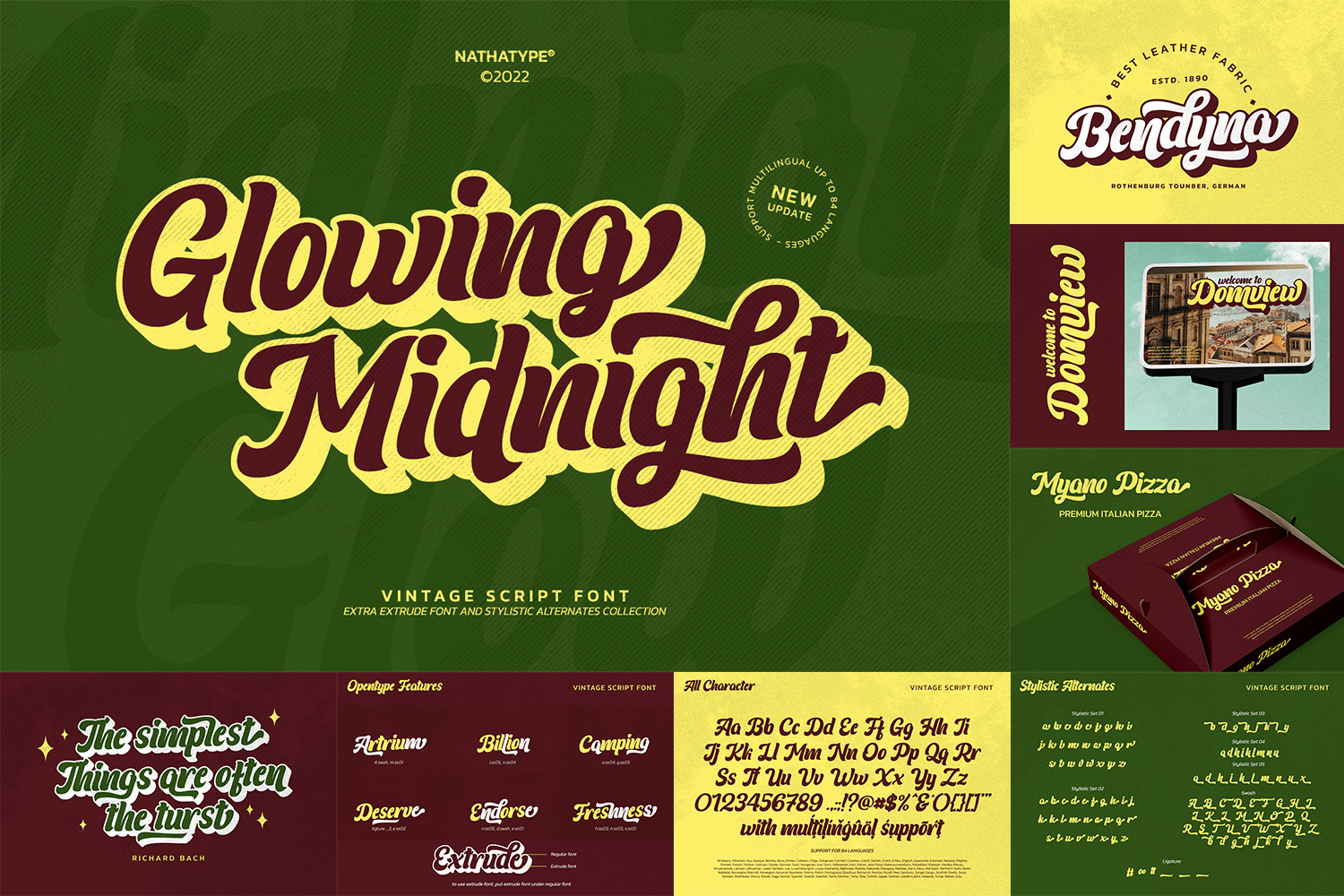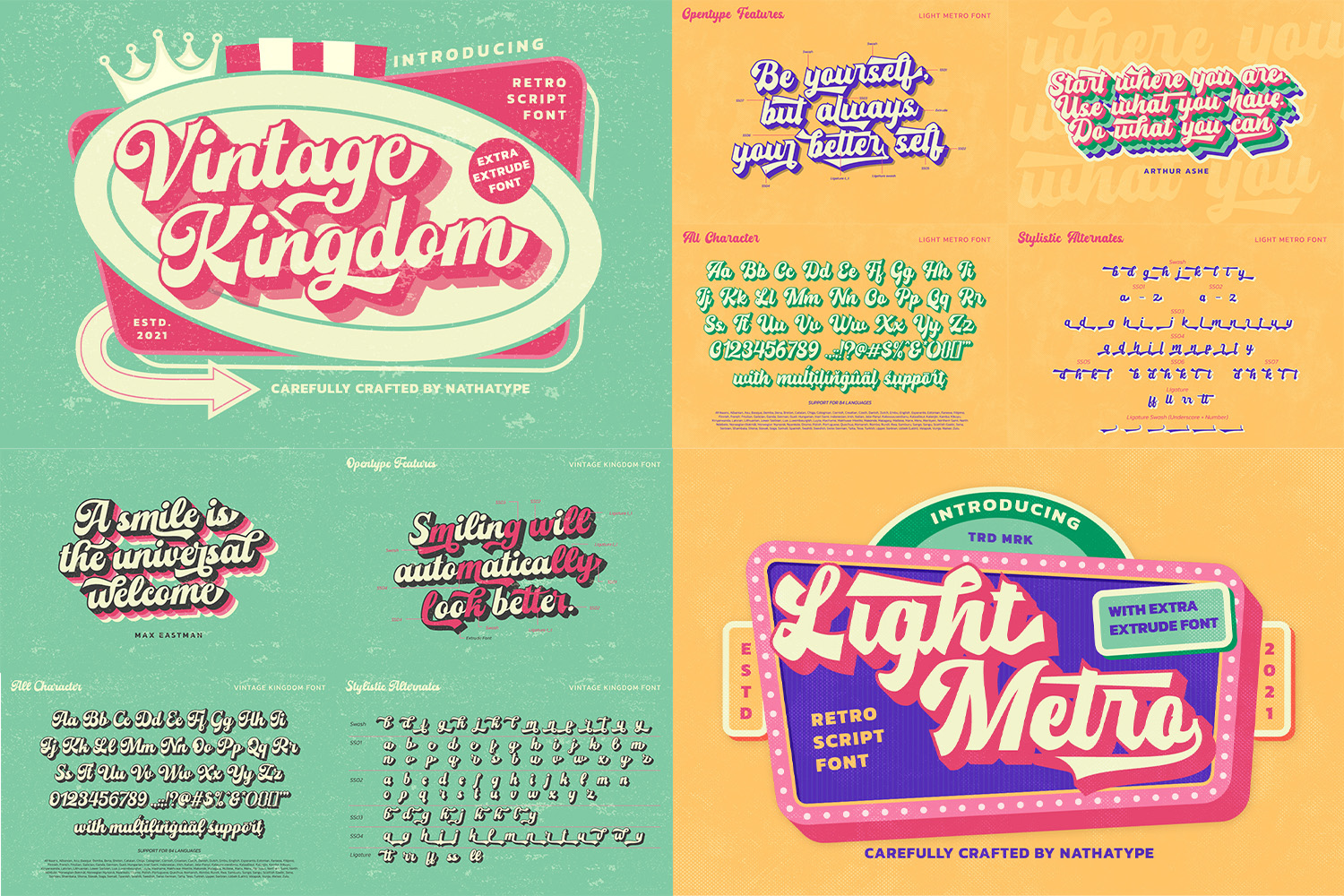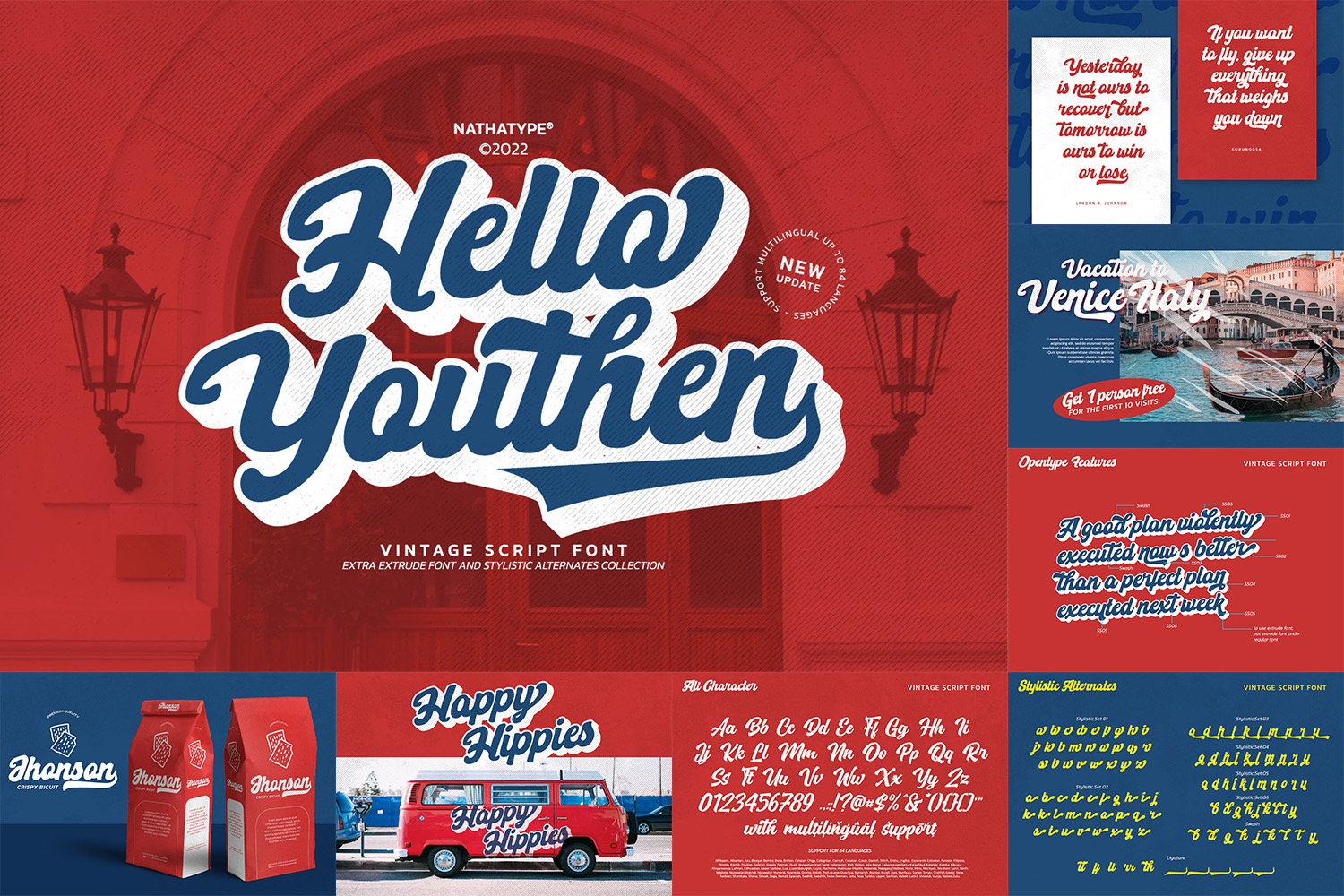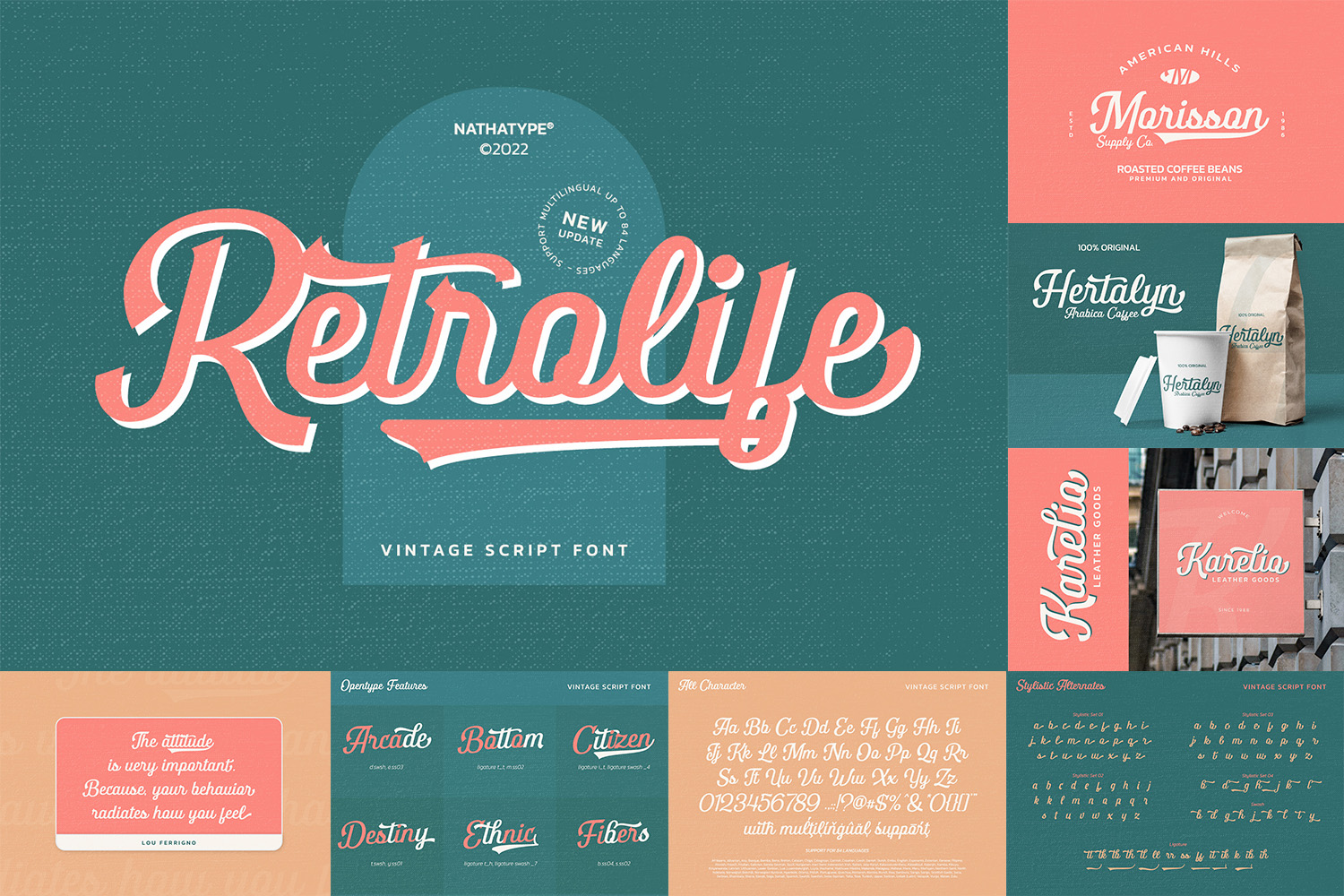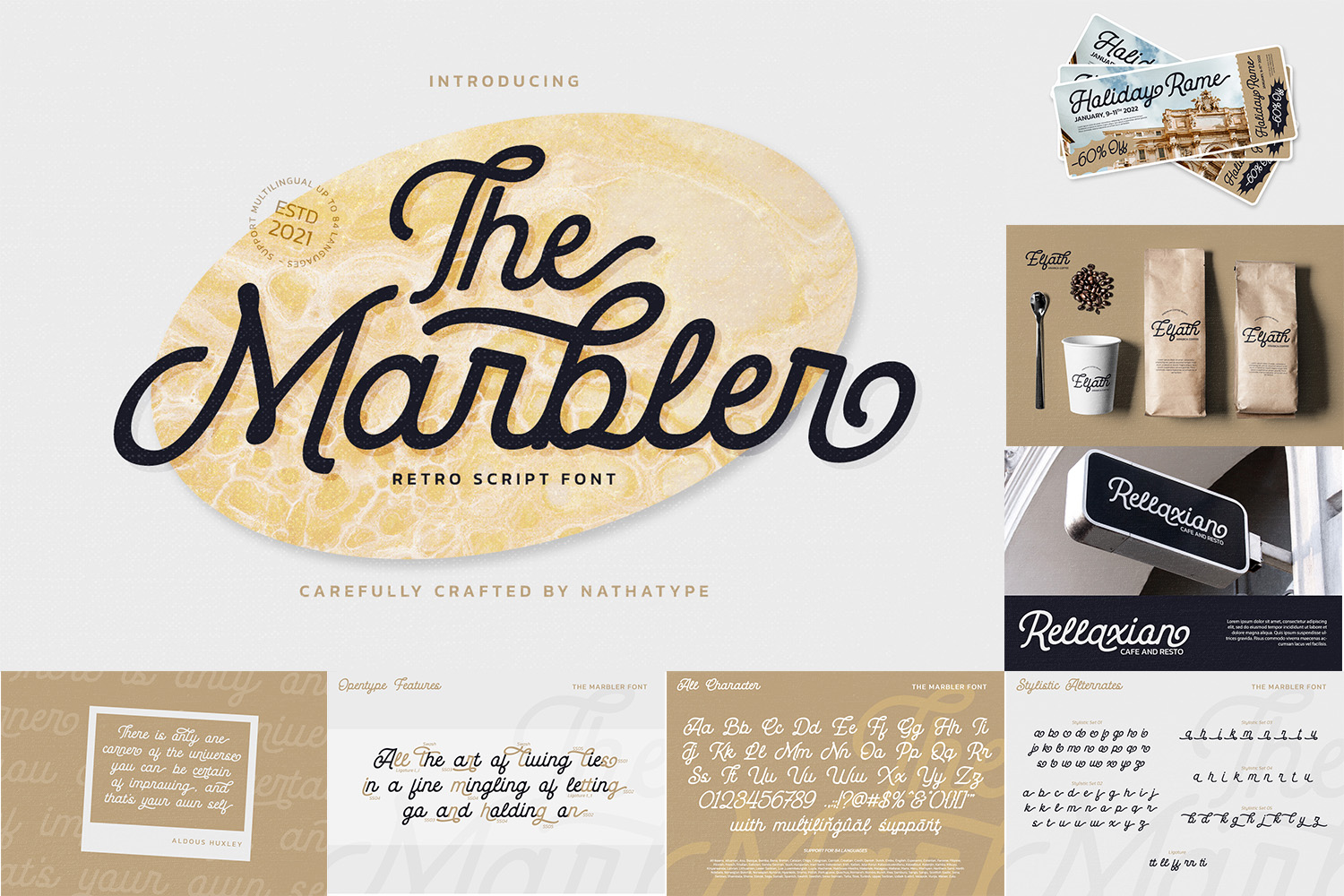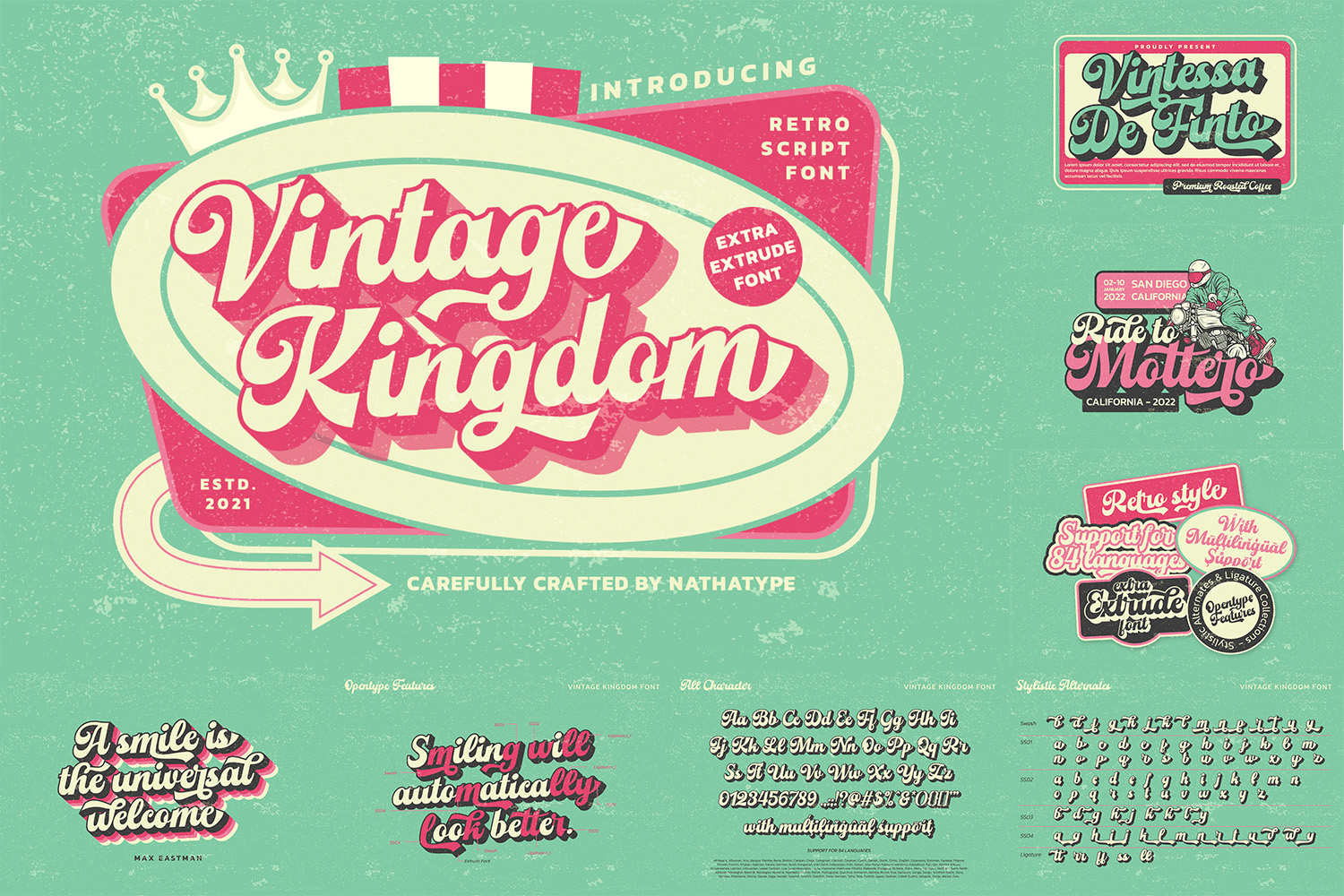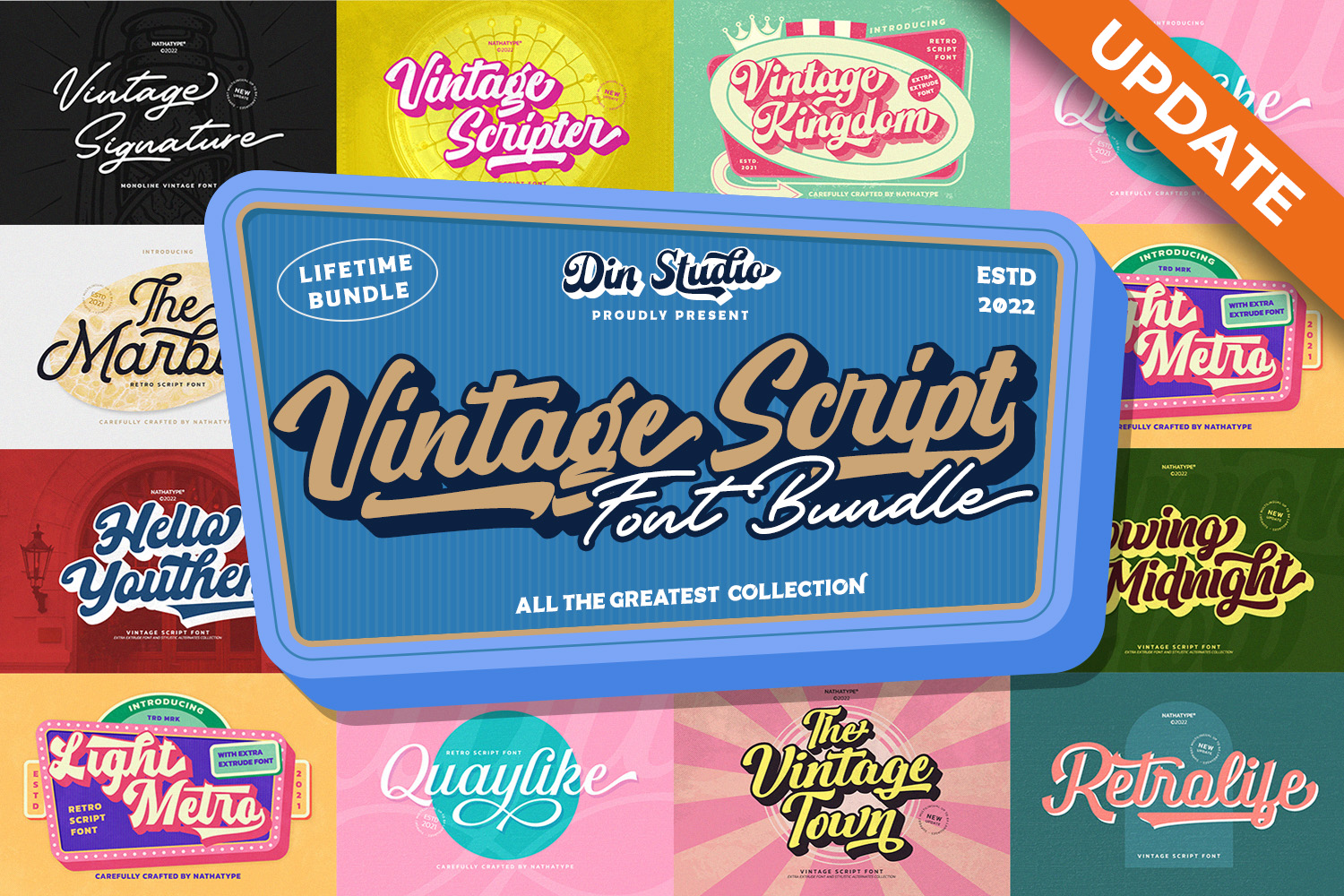
Vintage Retro Font Bundle
The Beautiful font collection for your design. Vintage Retro Font Bundle consist of authentic and vintage font style. Create gorgeous printed quotes, packaging, card, or merchandise! You can even use it to create amazing headings, logos, menus, and social media graphics.
The font also includes Multilingual Support to help you reach a global audience. See the previews above to get some inspiration on how you can use them.